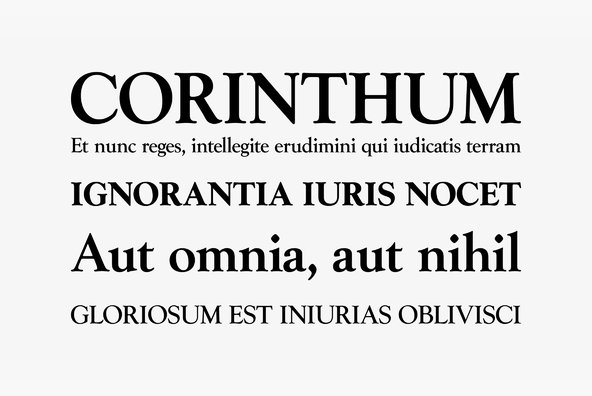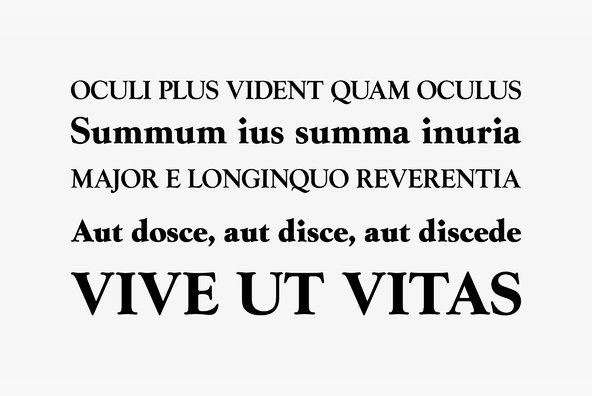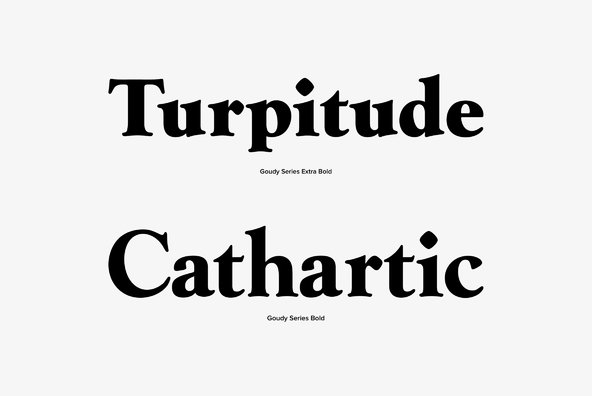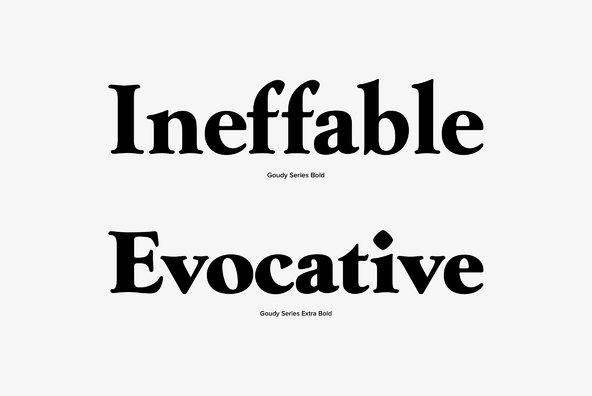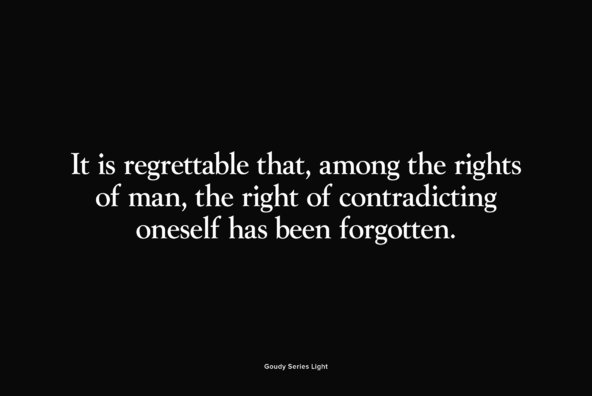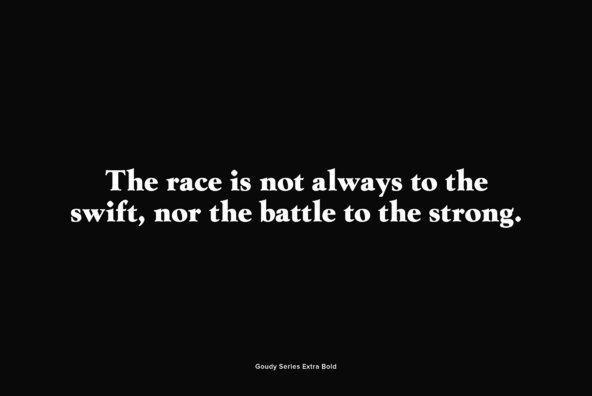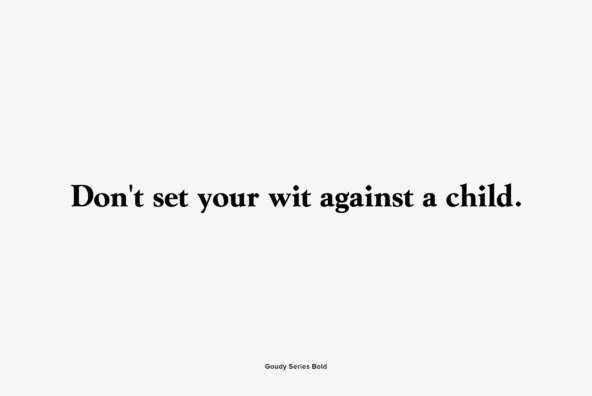
Originally designed by Frederic William Goudy, Goudy Series is a classic serif font release by URW. Contains language support for West, East, Turkish, Baltic, and Romanian.